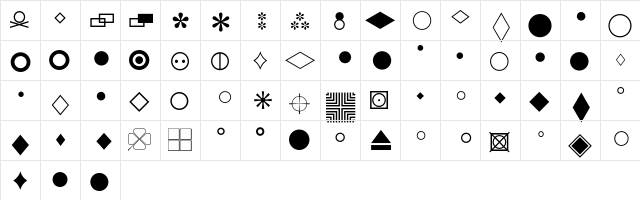
GeneralSymbols P05
GeneralSymbols is a composed and adaptable typeface that performs quietly and consistently across a wide range of design contexts.